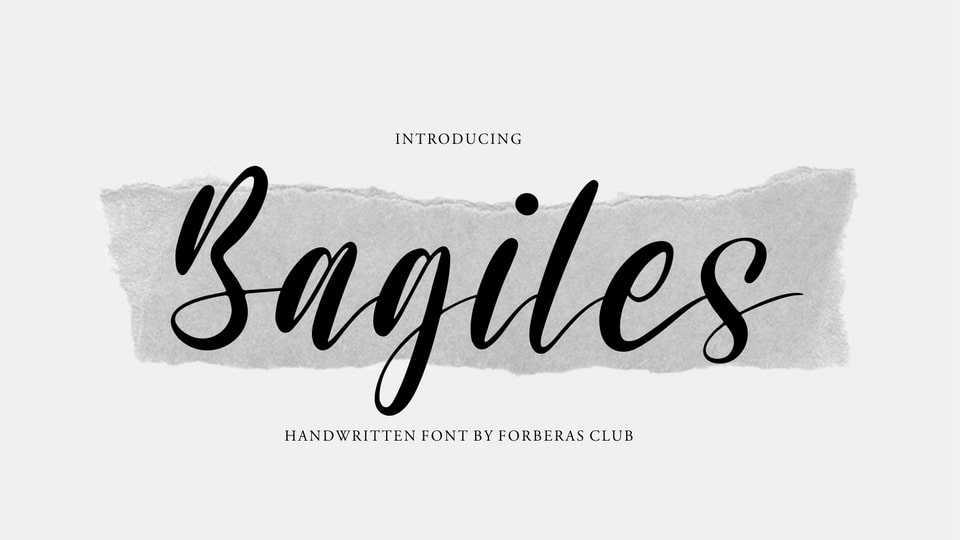
Download Bagiles font, an organic script carefully created with a touch of elegance. Bagiles is perfect for Instagram or DIY projects to turn any creative idea into a true piece of art.